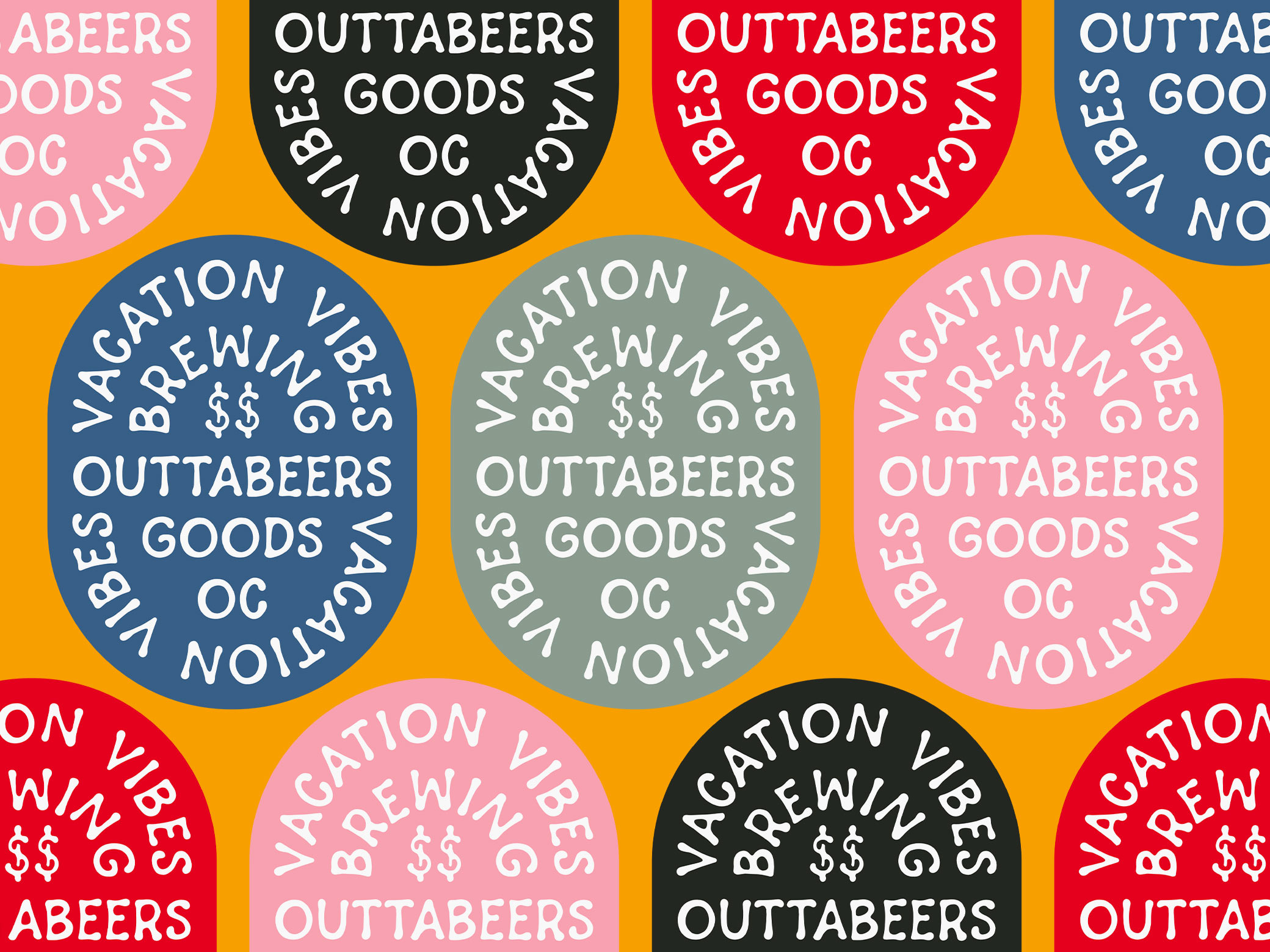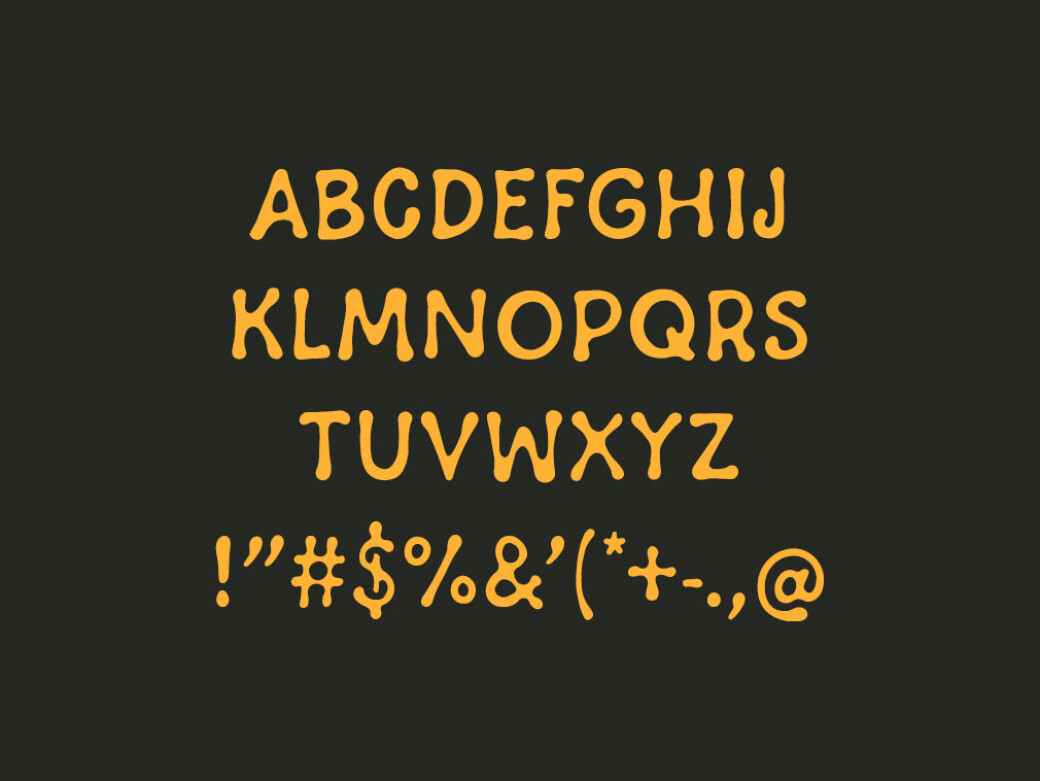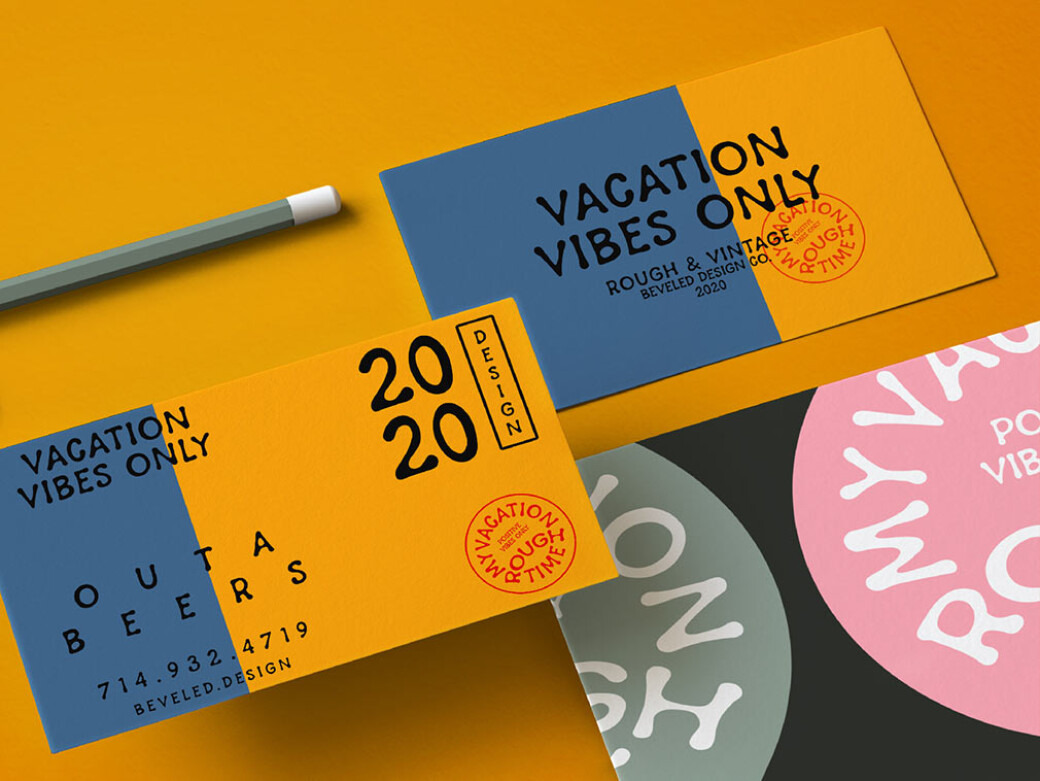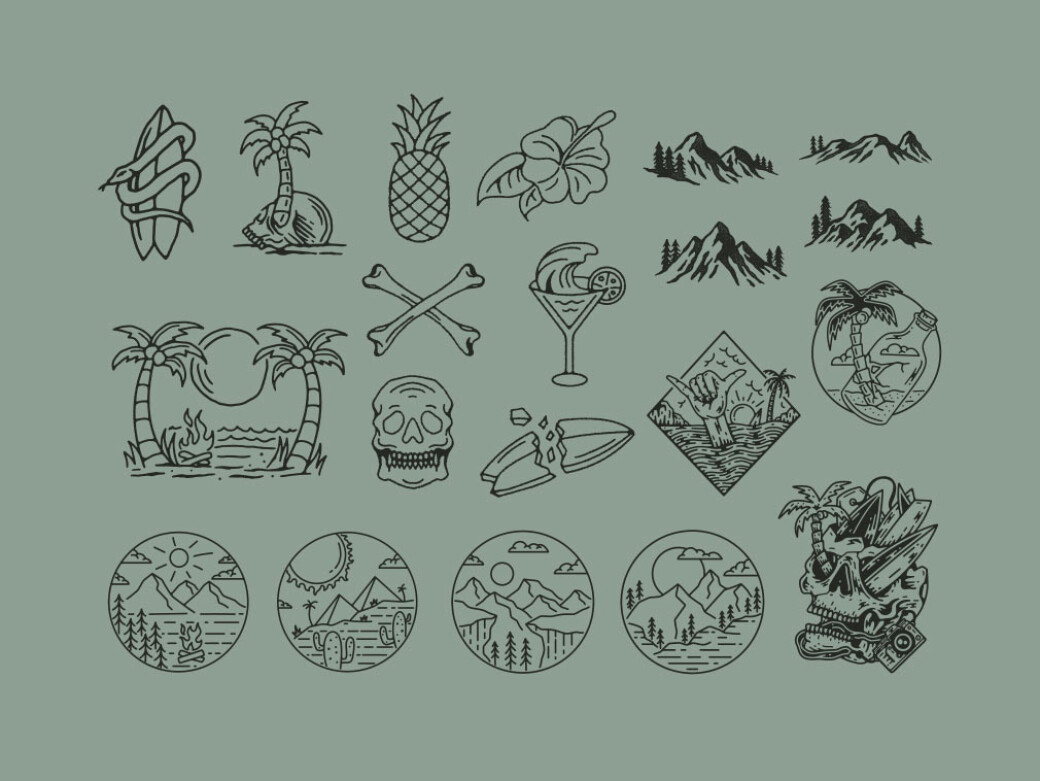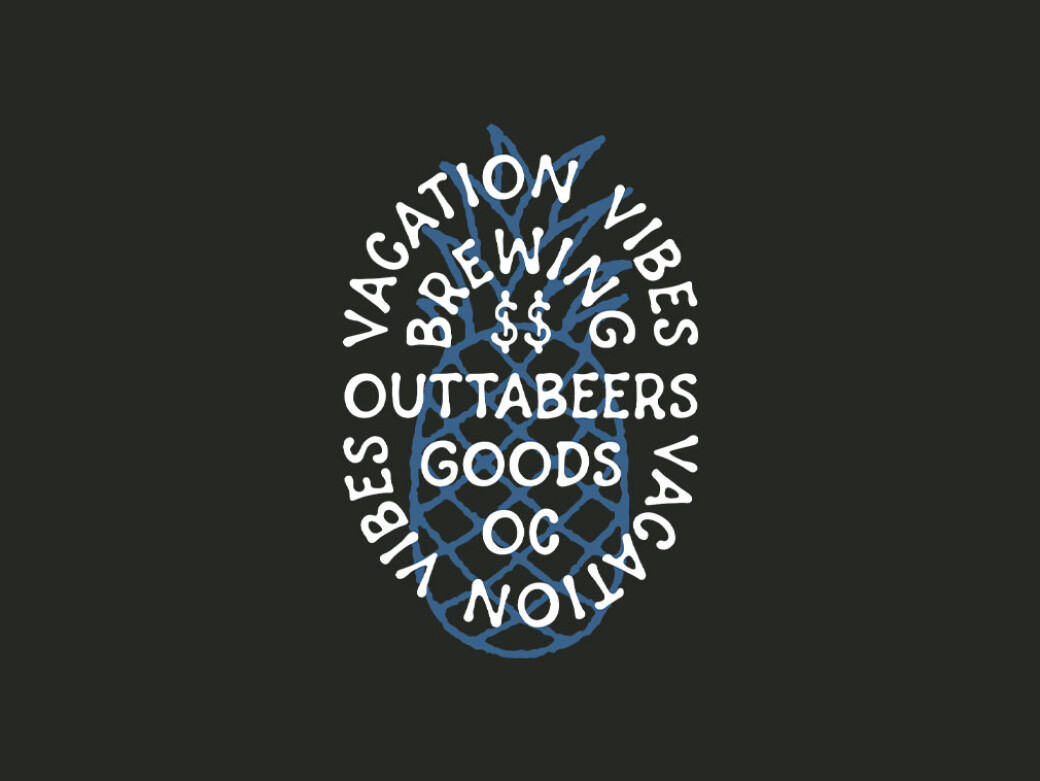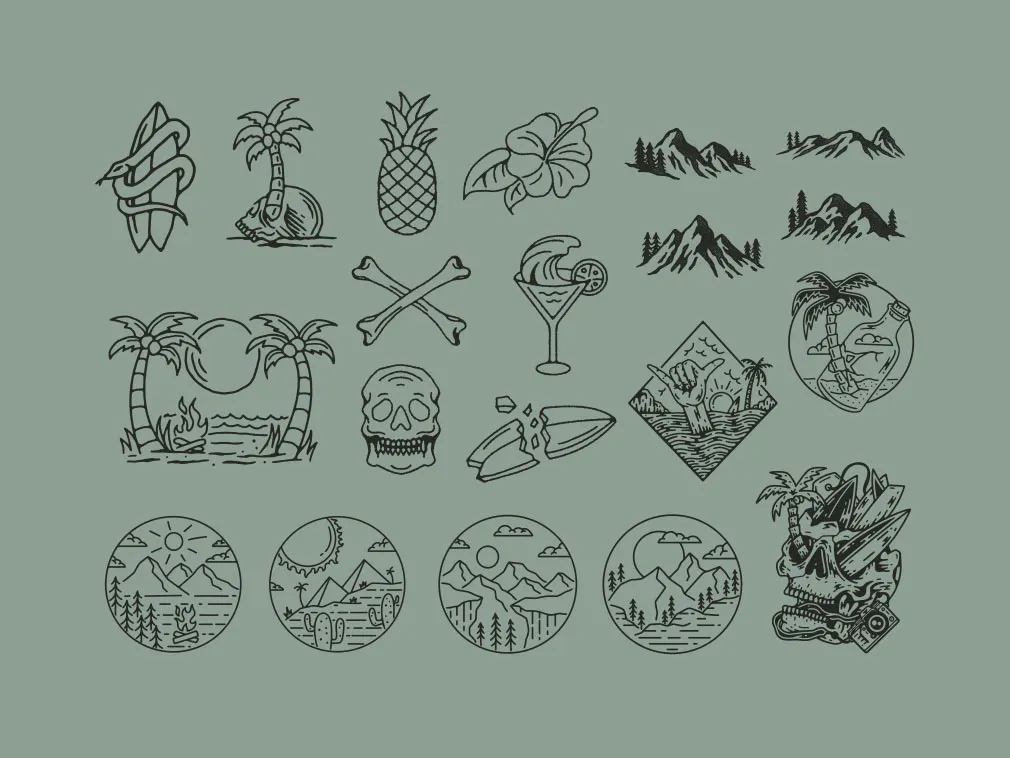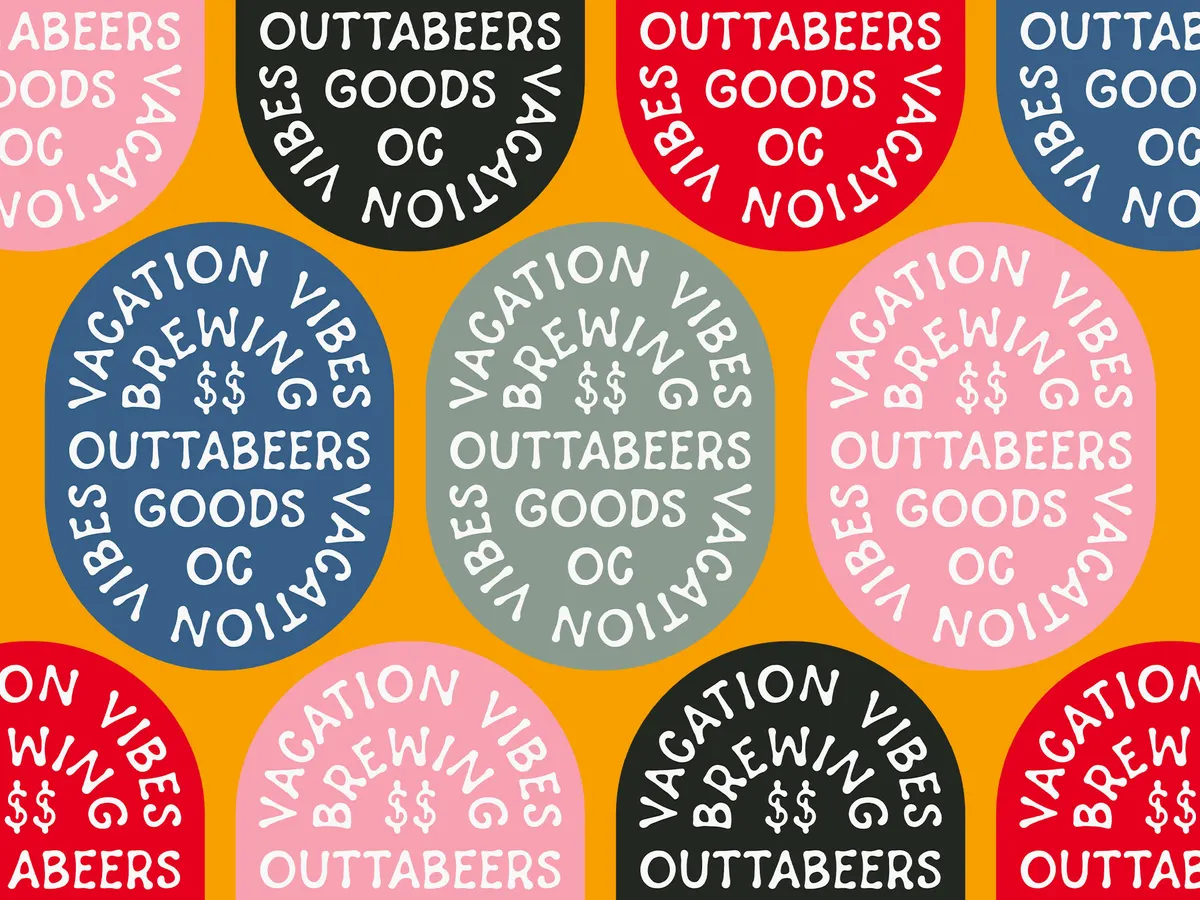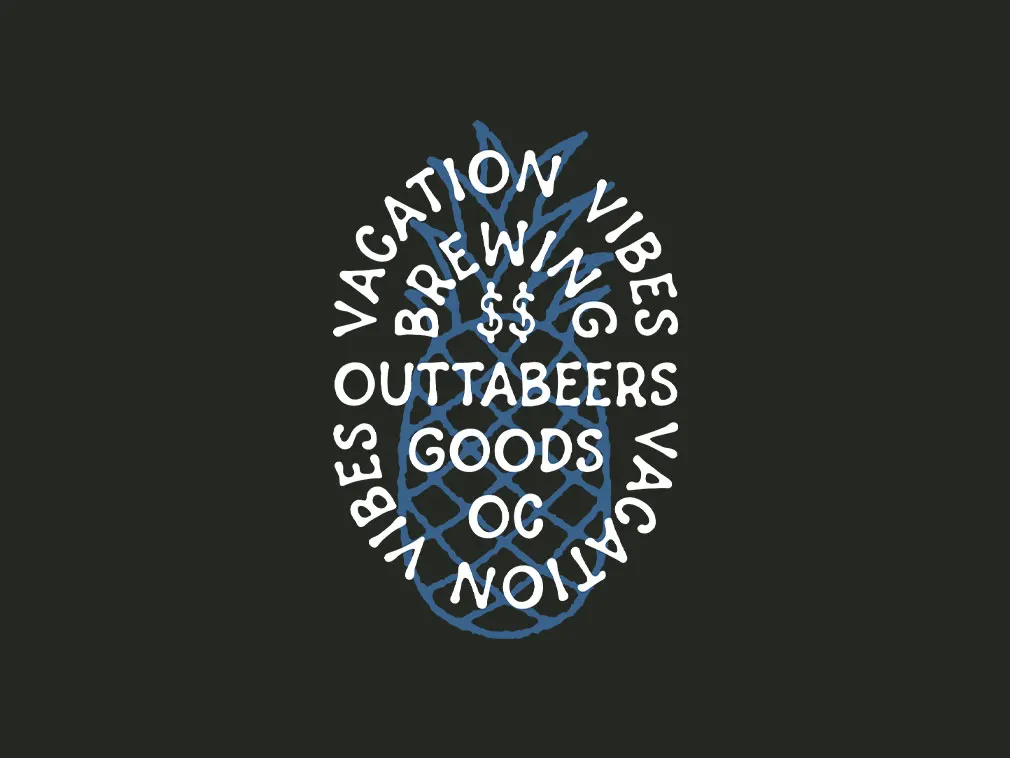
Vacation Vibes Handwritten Font
Inspired by the ’70s and the smooth aesthetic of gel pens, the fluid style of this strong vintage sans serif font is felt through the hand-drawn letterforms and blotted ends.A contrast of bold ends and smooth curves can be seen through this vintage typeface. Each letter can stand on its own as a piece of art, dynamic, and organic in its individual form. Vacation Vibes works great in any branding, identity or digital projects. The package is provided with 16+ additional glyphs and 20 vectors. The utilitarian form of this typeface gives it the flexibility to exist within any market.